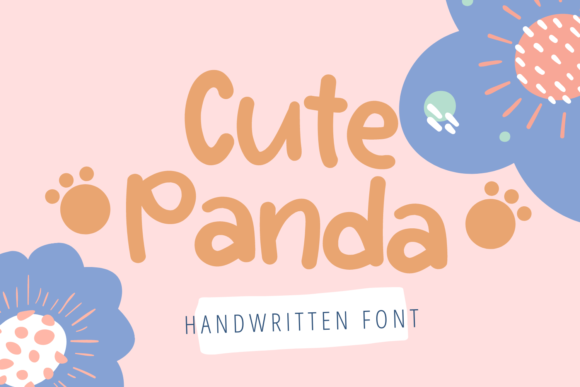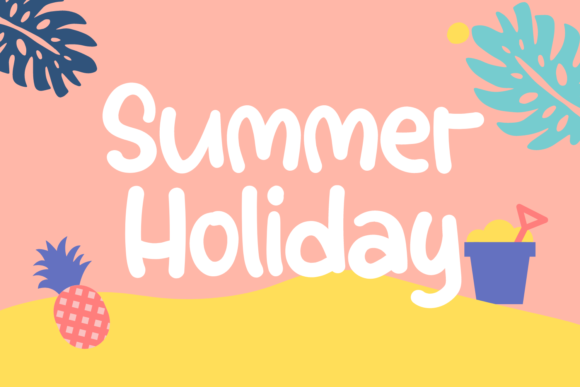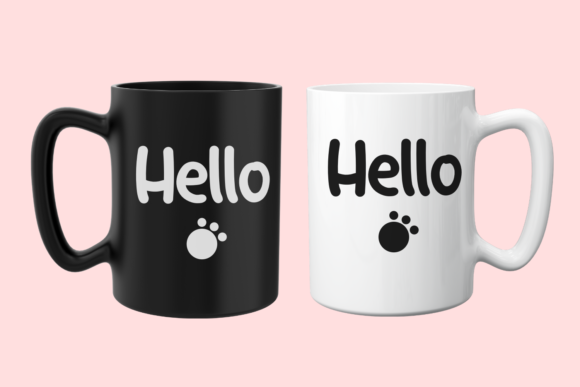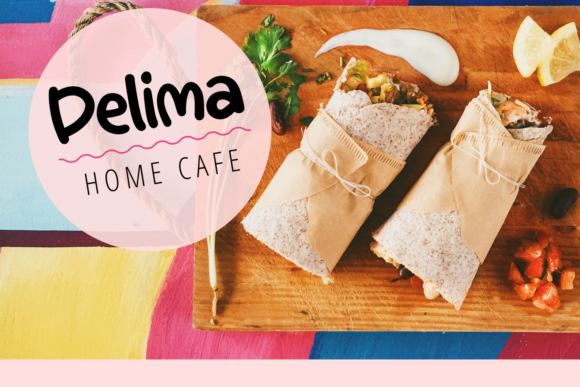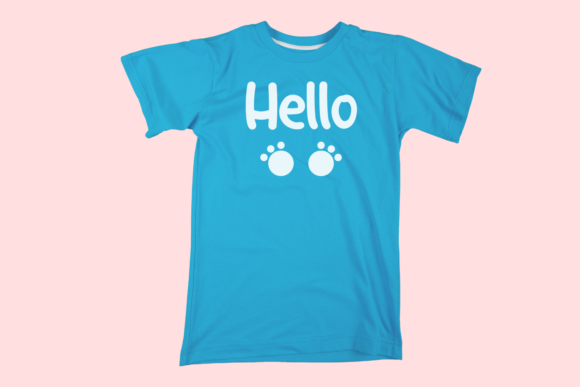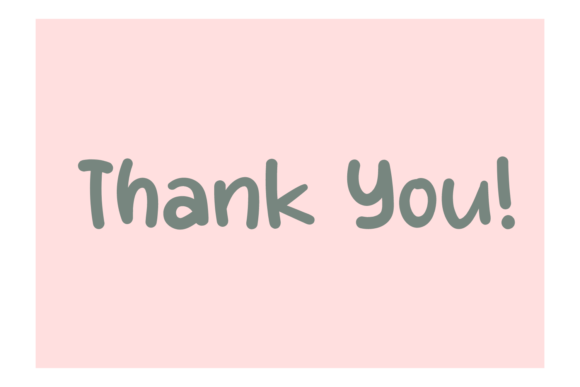
Cute Panda Font
About Cute Panda Font
Cute Panda is a fun handwritten font. It’s playfulnes make it great for creative project, be it inspirational wall posters or for communicating your brand.